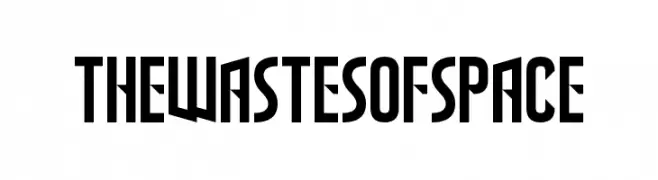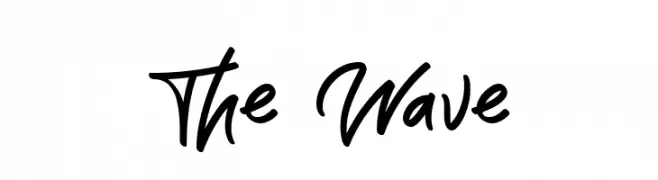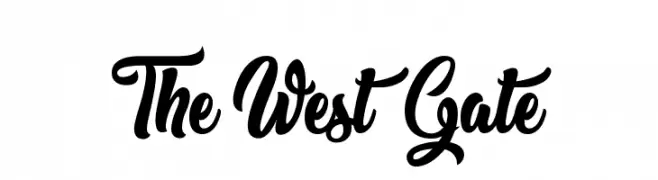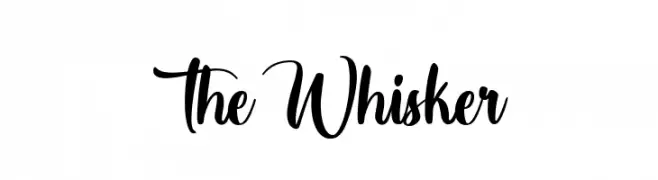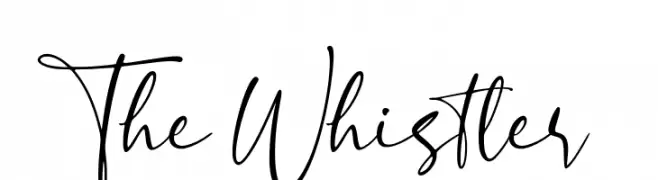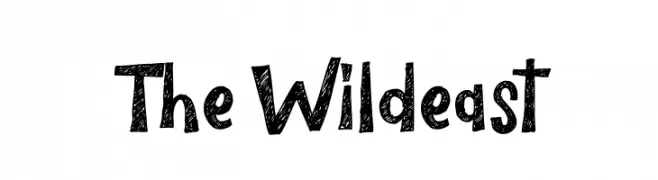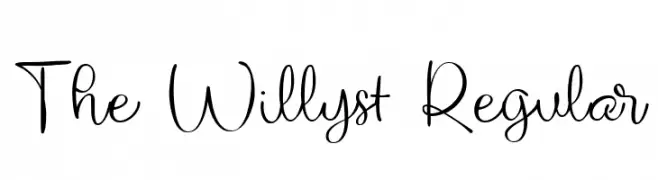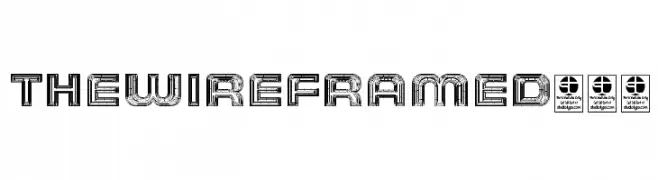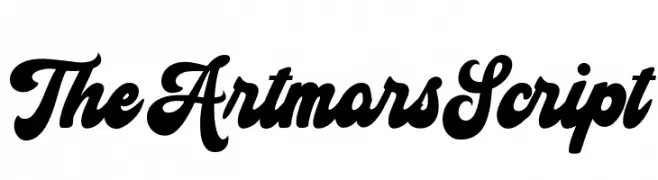
A dynamic, flowing script font with a natural handwriting style.
A bold, expressive script font with flowing curves and dynamic style.
An elegant, flowing script font with ornate uppercase and smooth lowercase letters.
A lively, expressive handwritten font with dynamic strokes and a playful style.
A bold, fantasy-inspired font with sharp, angular edges and a distressed look.
A rugged, vintage-style font with industrial and handcrafted elements.
A playful, hand-drawn font with a textured, doodle-like appearance.
A playful, handwritten script font with elegant curves and fluid connections.
A wireframe-style font with a three-dimensional, technical look.